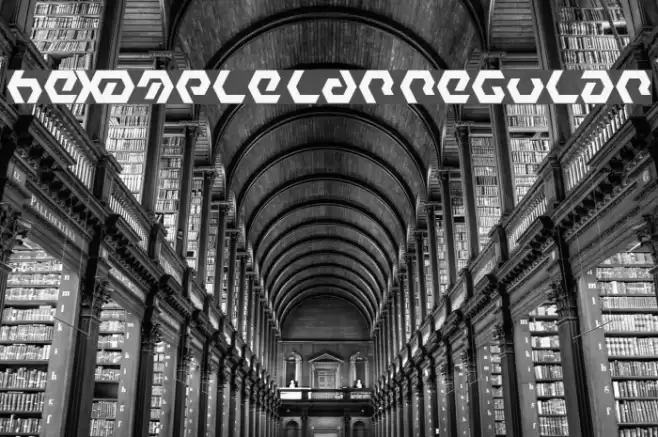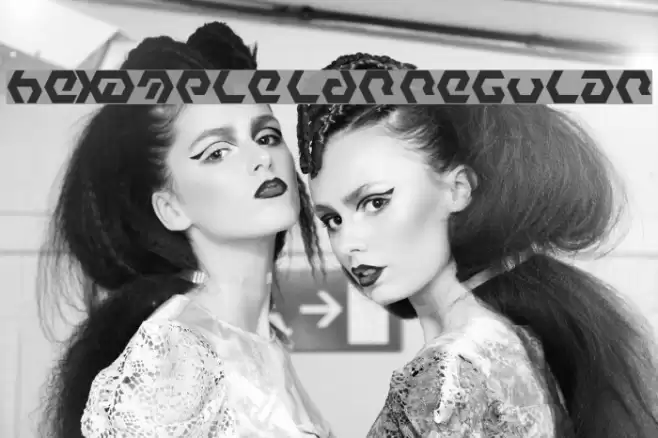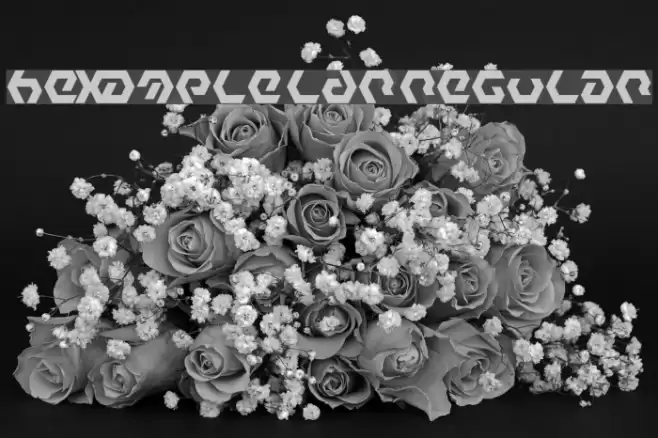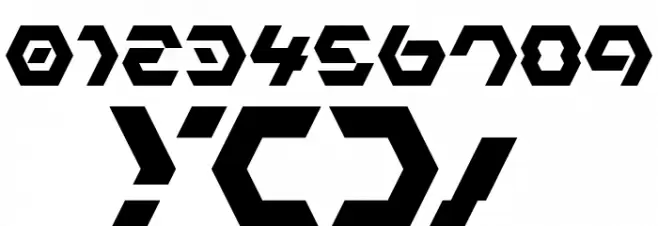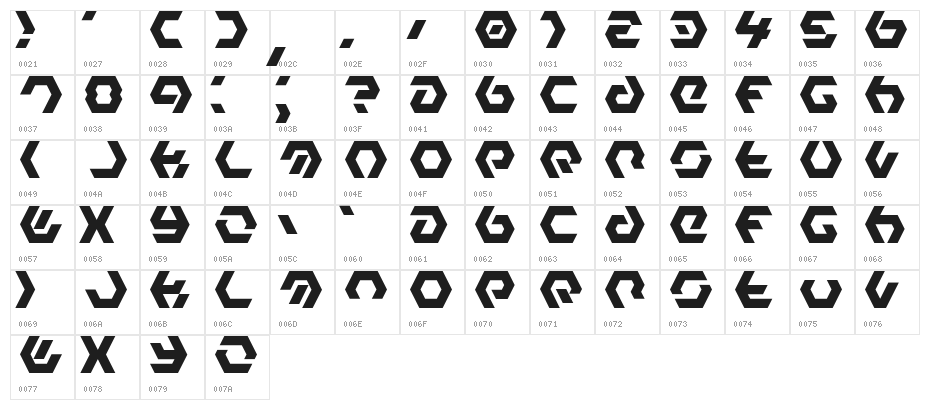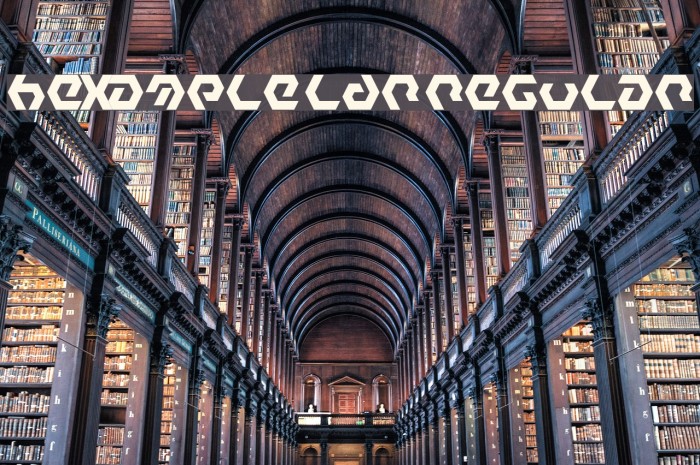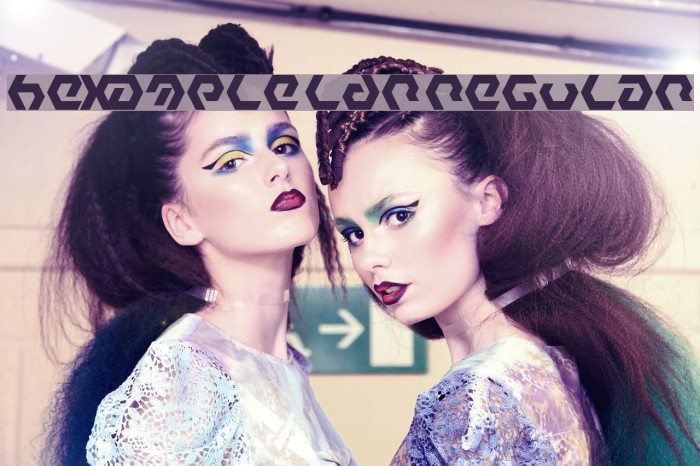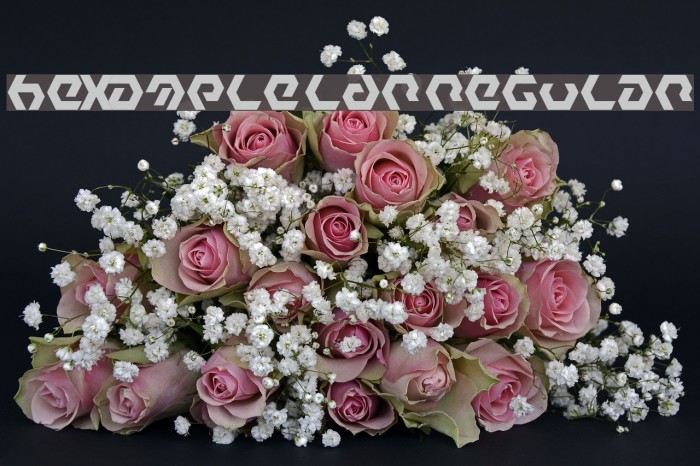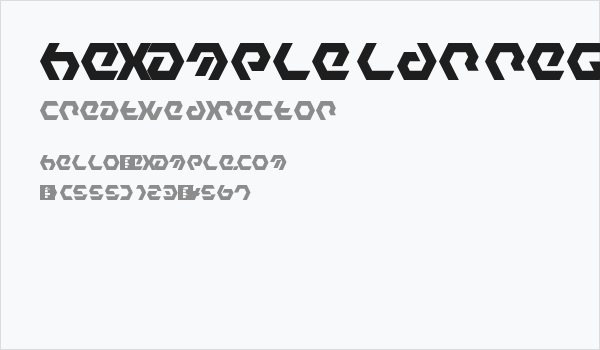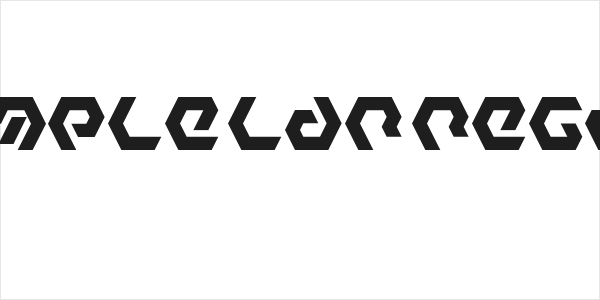
Hexample LDR Regular Font
Hexample LDR Regular Description
This font features a bold, geometric design with a futuristic and angular aesthetic. Each character is constructed with sharp, straight lines and distinct angles, creating a sense of movement and modernity. The uppercase and lowercase letters maintain a consistent style, with a uniform width and height that enhances readability. The numbers and special characters follow the same design principles, ensuring a cohesive look across all elements. The font's unique style makes it stand out, ideal for projects that require a strong visual impact.
A bold, geometric font with a futuristic and angular design from Uncategorized fonts.
- Proposed Projects: Ideal for sci-fi themed designs, technology branding, video game titles, and modern posters.
- Overall Style: Futuristic